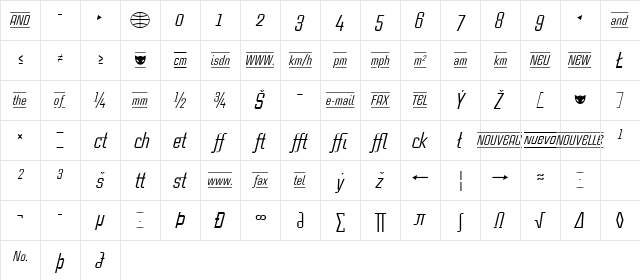
Complete CaseStudyNoOne LT RgAlt Italic glyph index. Displaying only characters natively supported by CaseStudyNoOne LT RgAlt Italic font.
CaseStudyNoOne LT RgAlt is a composed and adaptable typeface that performs quietly and consistently across a wide range of design contexts. The slanted form adds forward momentum and visual energy. Its slender proportions lend an understated elegance to any composition.